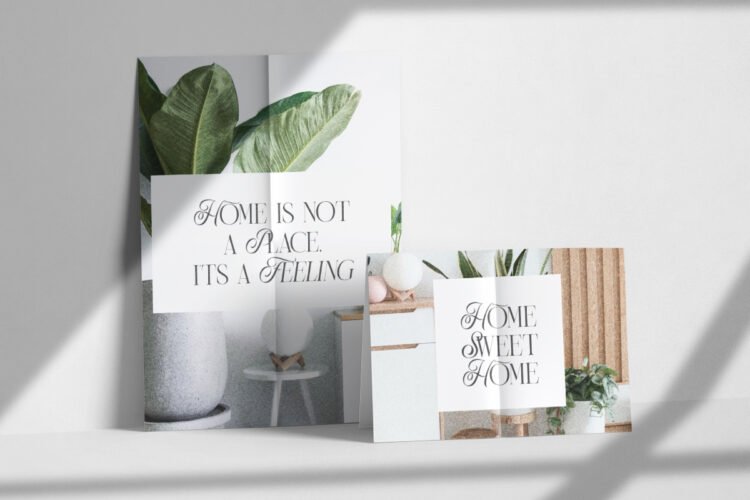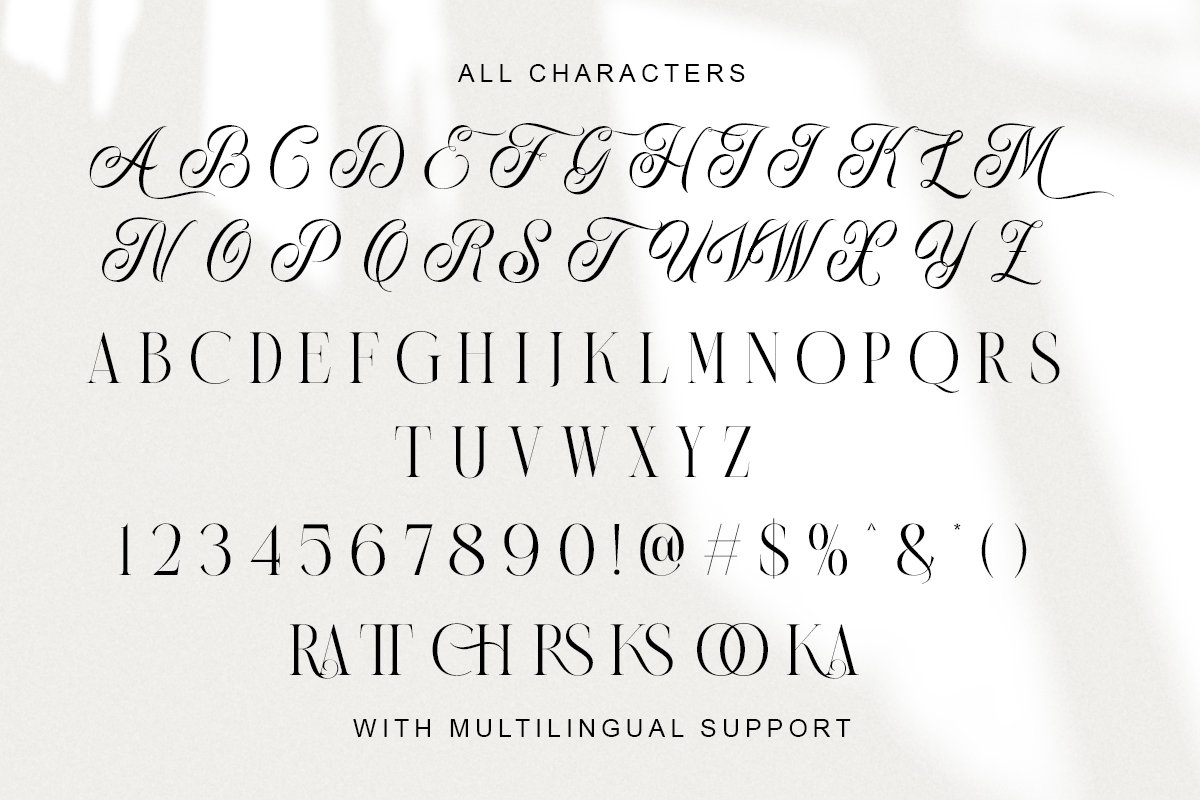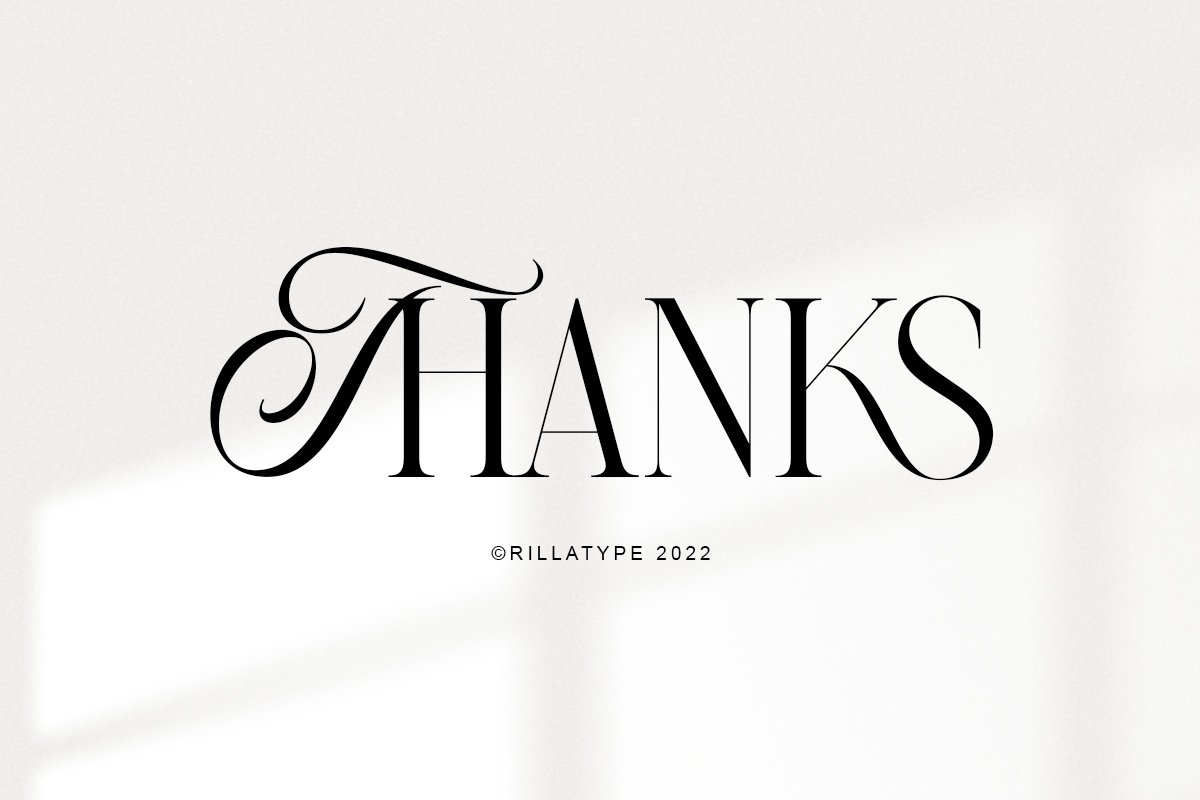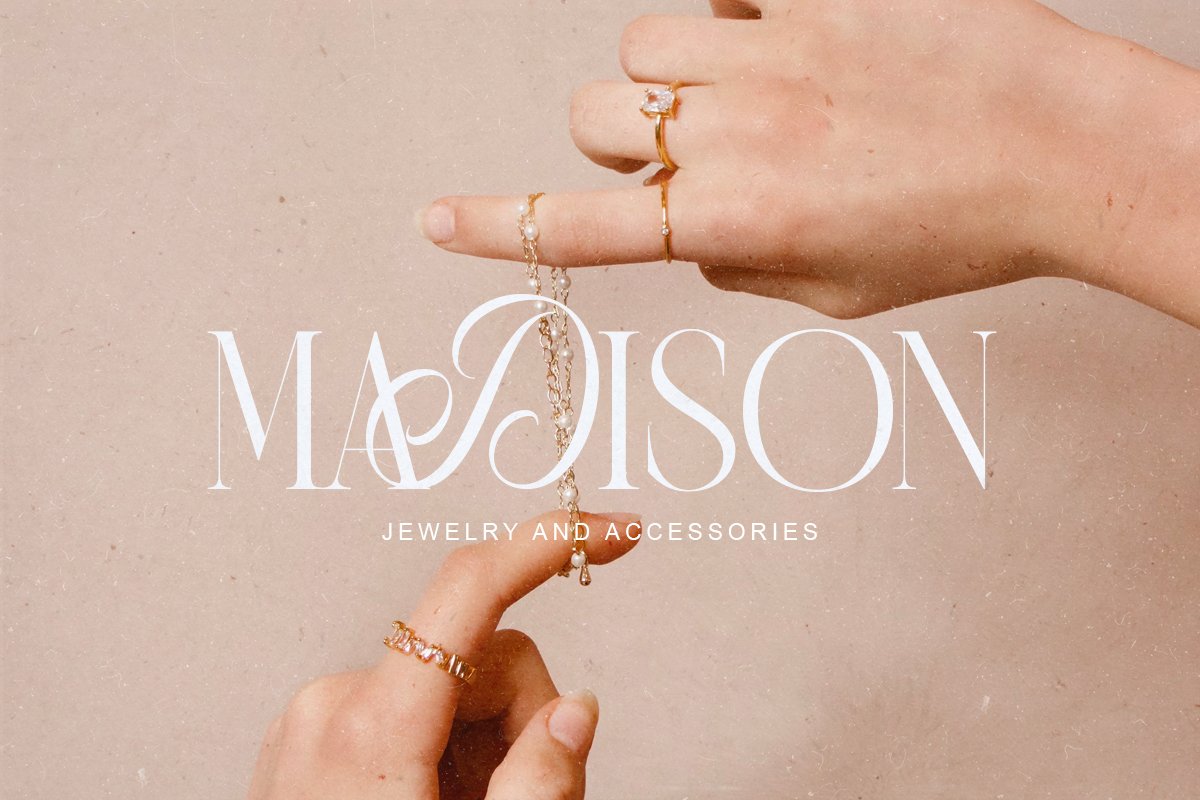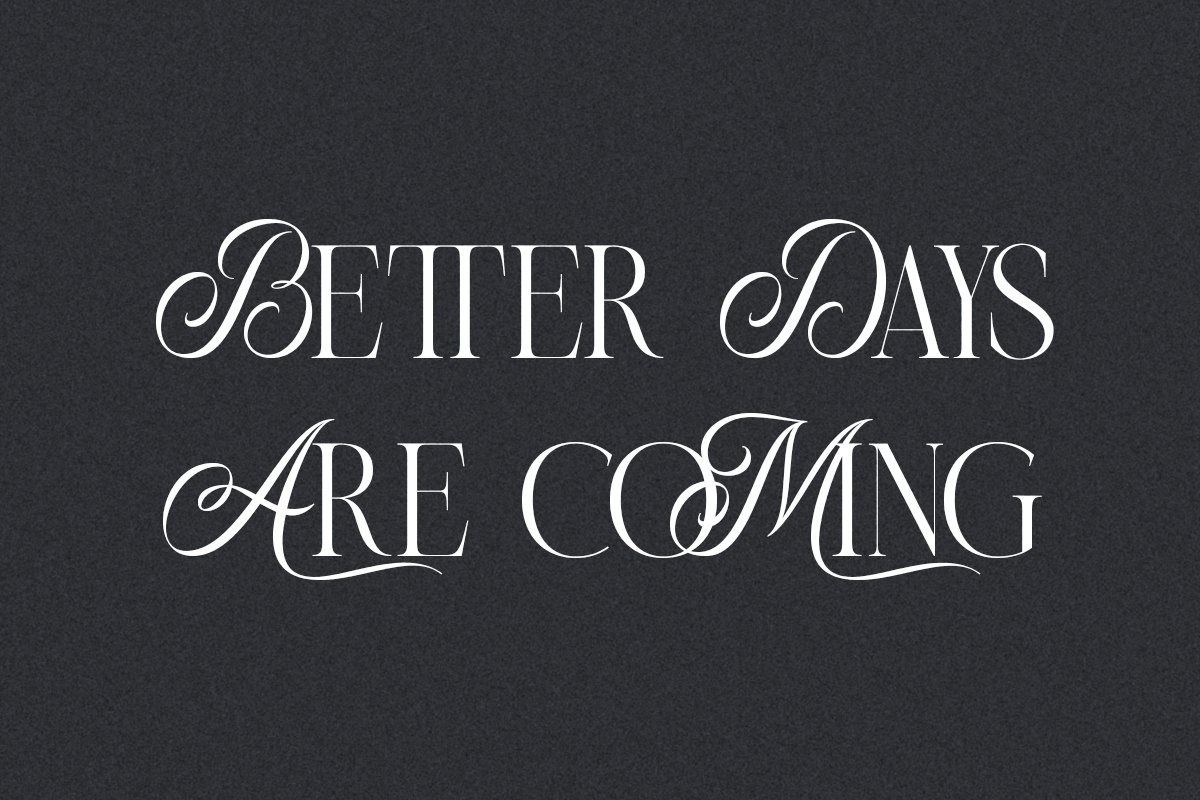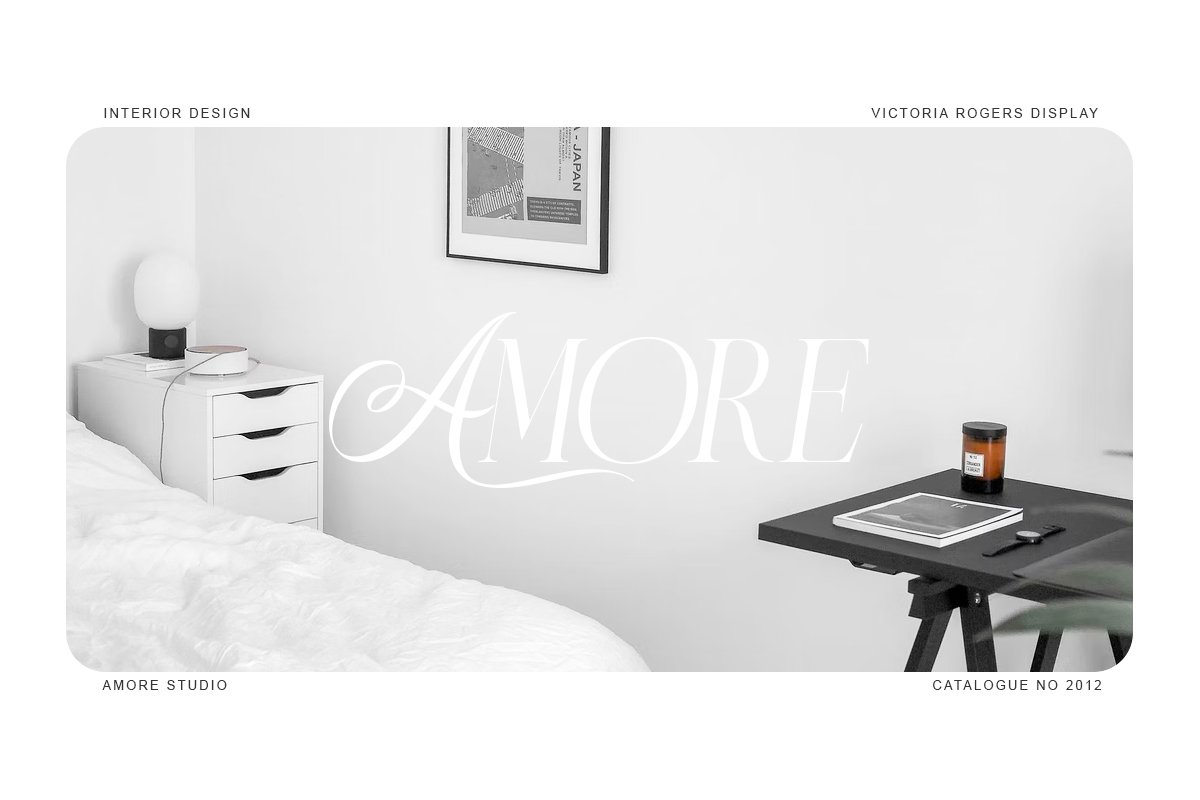
Proudly introducing, Victoria Rogers! Victoria Rogers is a special font that crafted carefully with heart and aimed to achieve the purpose of this font to be used as an elegant editorial font, but you can use it for anything you want!
This font is special because the uppercase and lowercase have different style, uppercase with feminine feel with swash, and lowercase with thin and crips elegant display serif, mix them both and voila, you have an elegant design instantly!